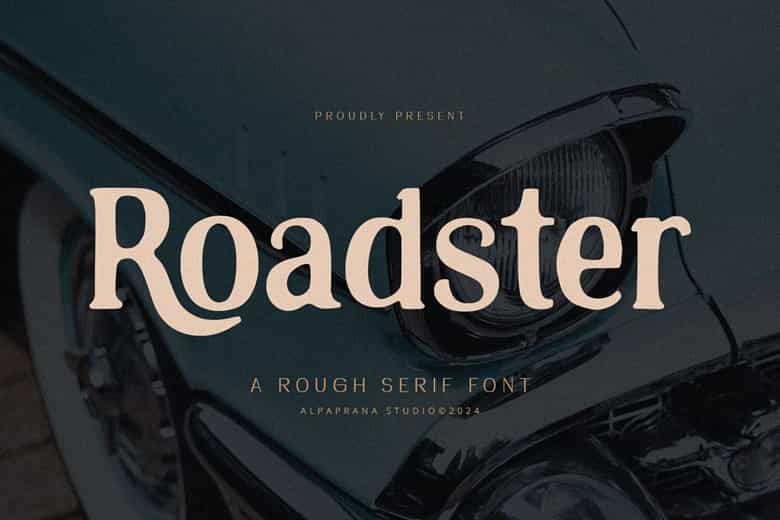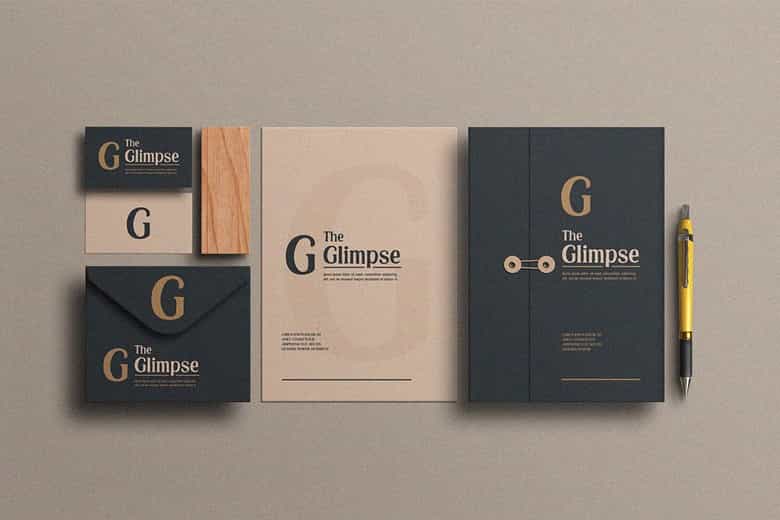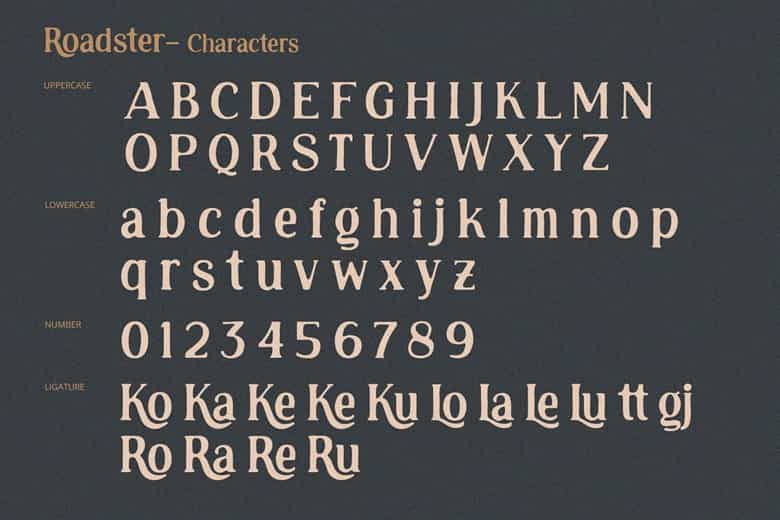
Roadster is a modern display serif font that has some rough looks and feels very classic. It can be perfect for branding, logo design, lettering, logotype, clothing, poster, magazine, packaging, posters, shopping bags, t-shirts, book covers, photography, special events and Other design project.